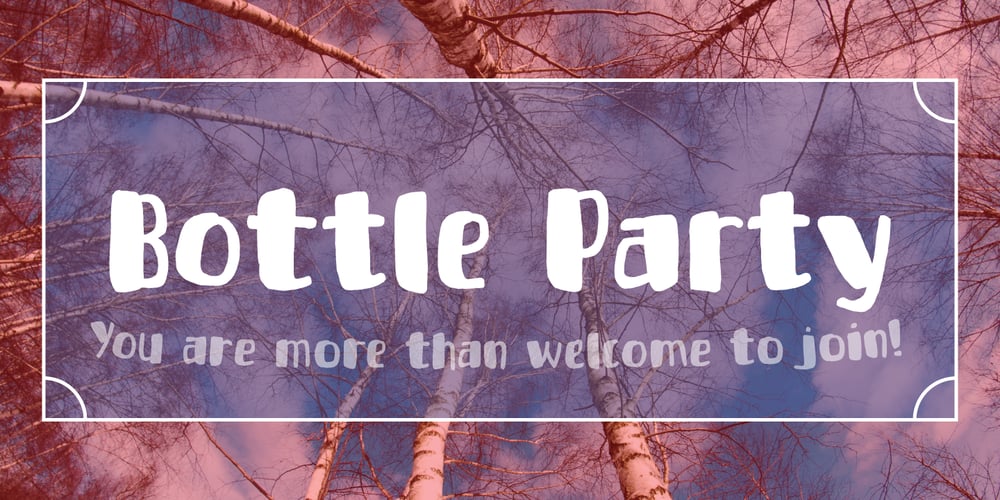
Bottle Party
Bottle Party font
Bottle Party Font Family was designed by Jakob Fischer and published by PizzaDude.dk. Bottle Party contains 1 styles and family package options. A bottle party is a party where you are supposed to bring whatever you wish you drink. When using my Bottle Party font, you need not bring anything at all! The font does all the partying itself – all you need to do is type, and the contextual alternates makes sure that your text doesn’t repeat the same letters over and over again! How is that? As I said, it happens automatically as you type, because the font cycles through the 4 different versions of each lower-case letter! The font is handmade with a brush feeling to it, legible at even very small sizes and it’s quite full of international characters!